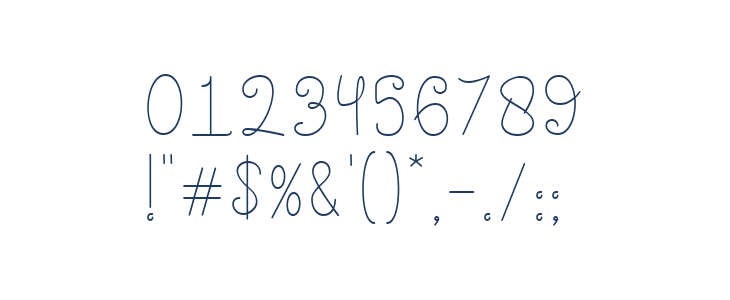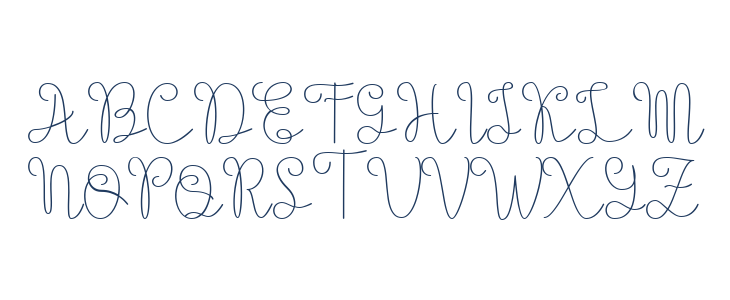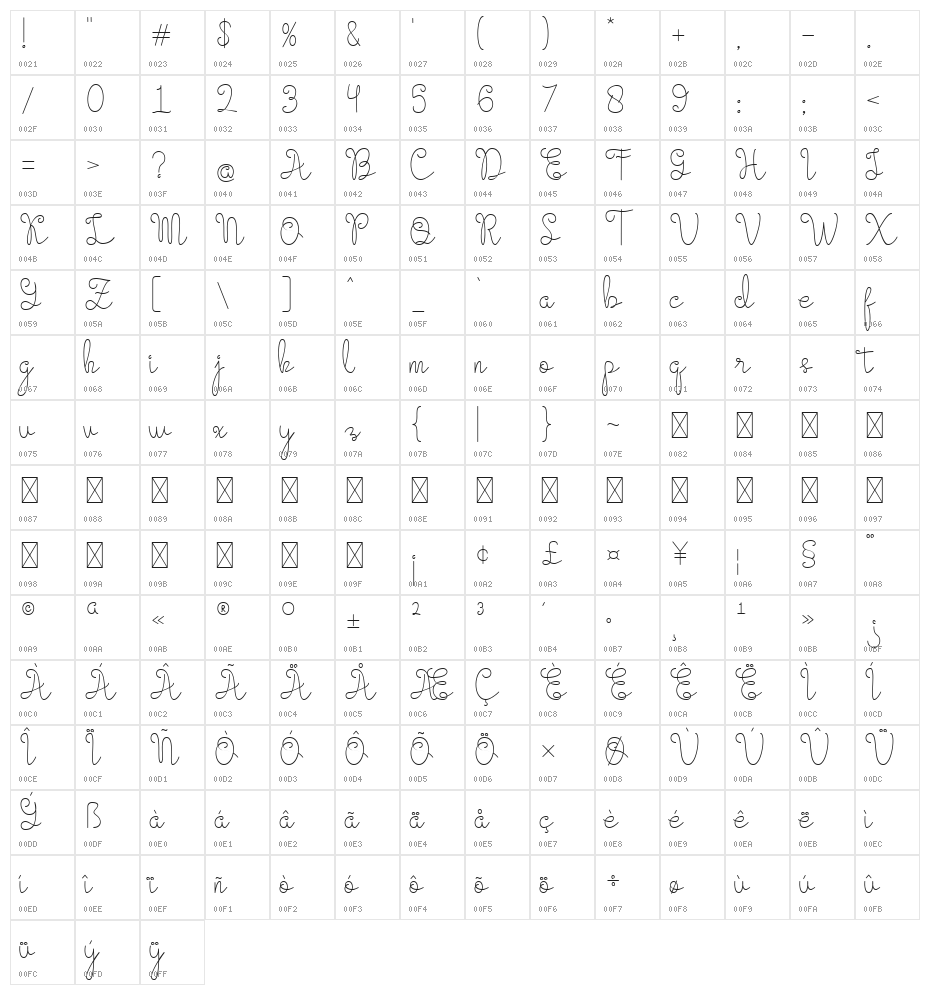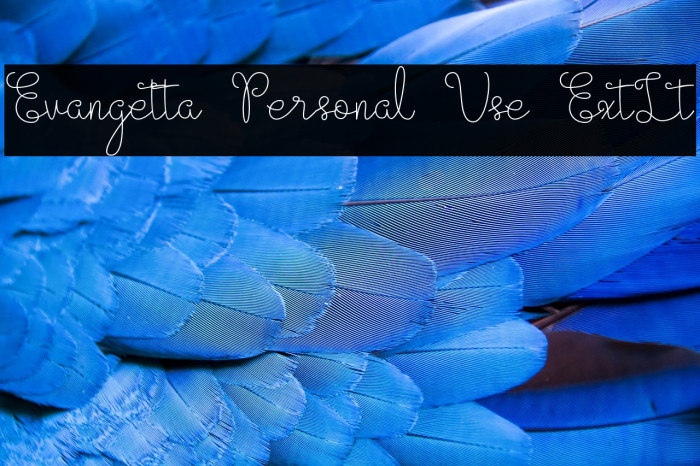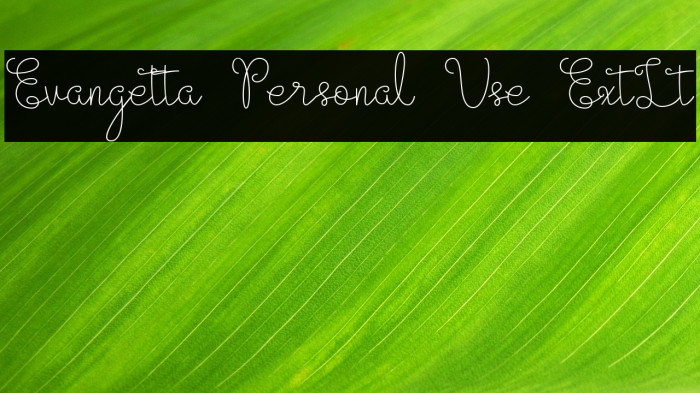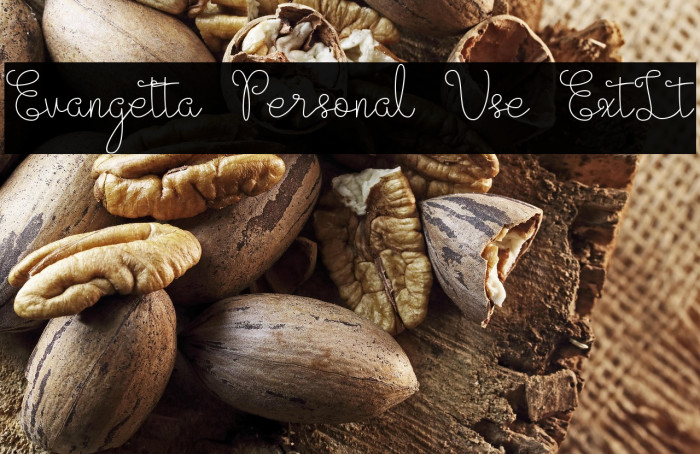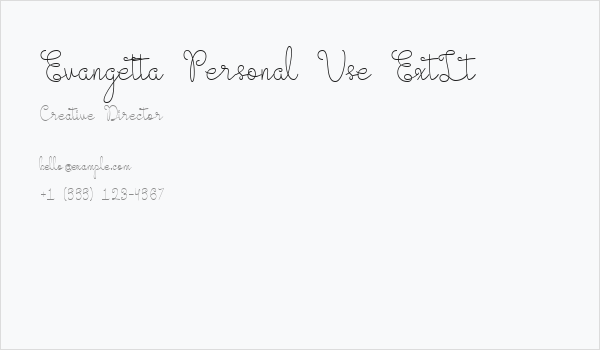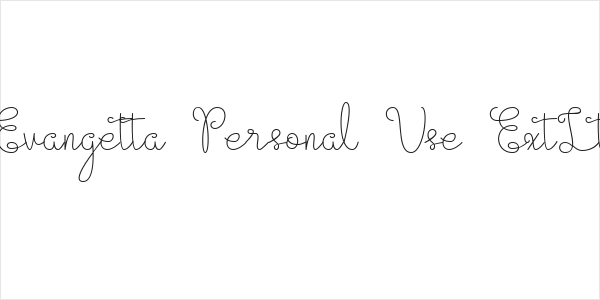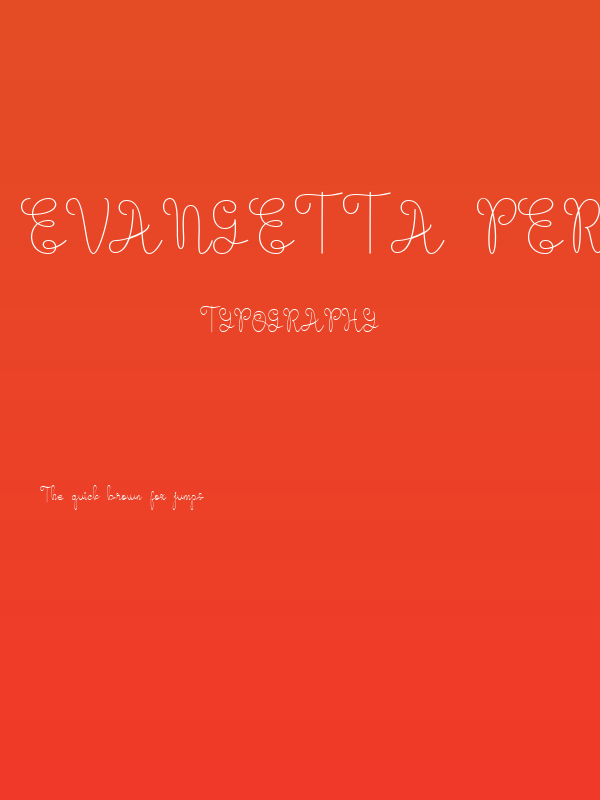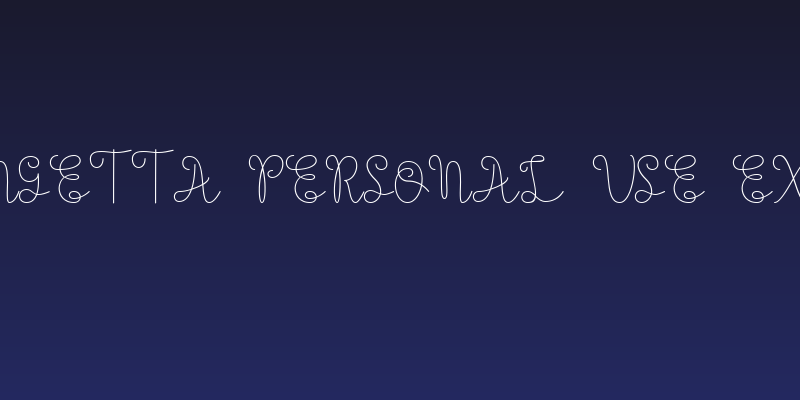
Evangetta Personal Use ExtLt Font
Evangetta Personal Use ExtLt Description
A delicate, cursive script font with a handwritten, whimsical style featuring thin, flowing lines and elegant loops.
| Overall Style | Whimsical, Elegant, Playful |
| Use Case | Invitations, greeting cards, personal branding, logos, decorative headings. |